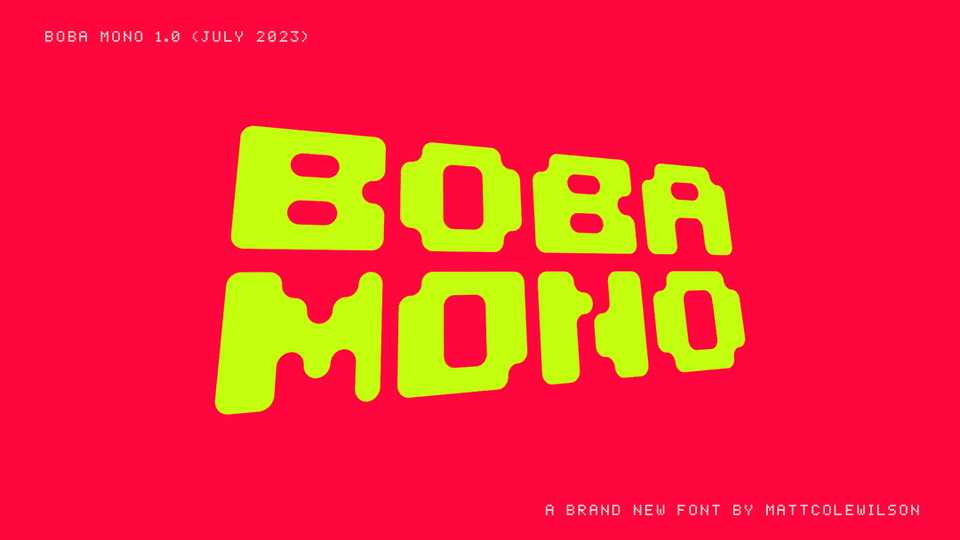
Download Boba Mono font, a monospaced display typeface stared as a pixel font with a 5×6 grid. With its rounded corners, Boba Mono font looks more fun and unique.
Designer: Matt Cole Wilson